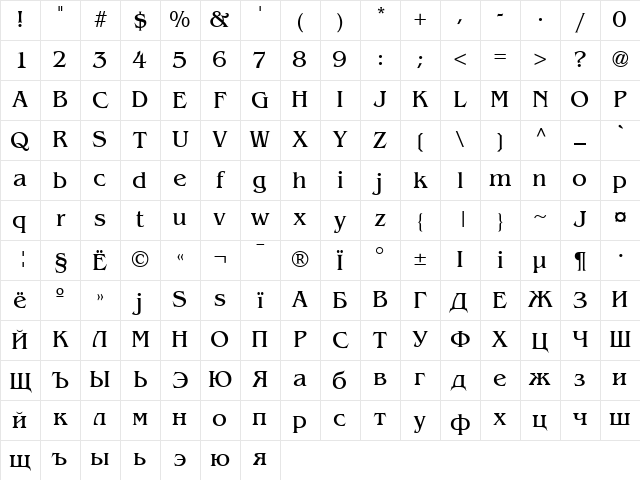
AG_Benguiat Regular Free Font
AG_Benguiat Regular
Design Context for AG_Benguiat
AG_Benguiat is a composed and adaptable typeface that performs quietly and consistently across a wide range of design contexts.